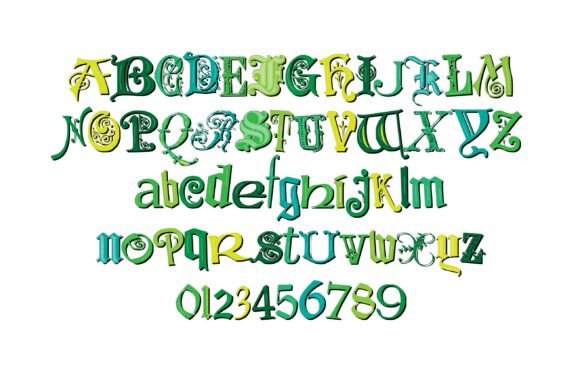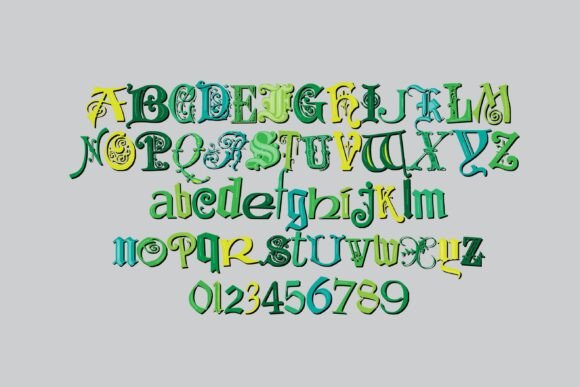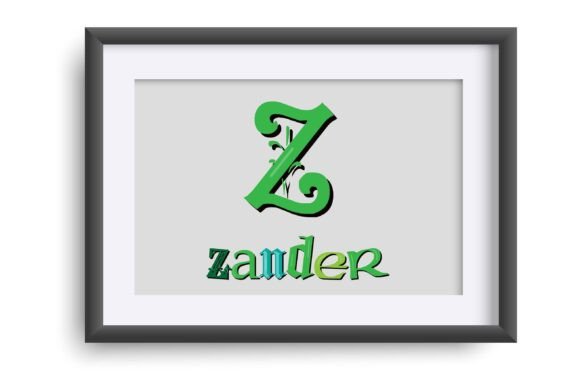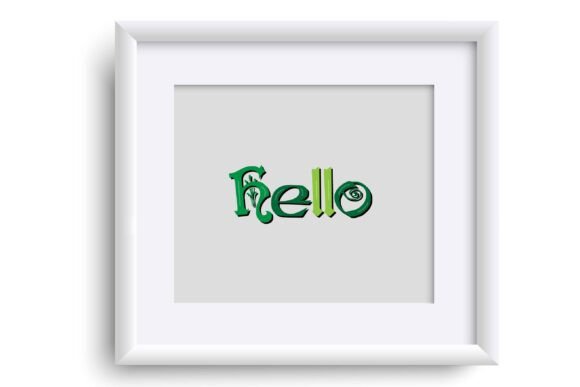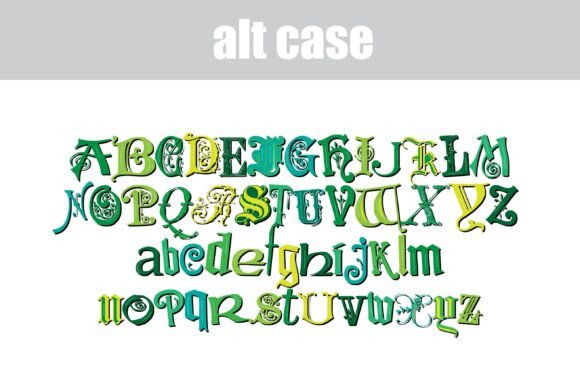
Introducing Emerald Mix Font: A Stunning Full-Color Font for Designers and Crafters
Are you looking for a unique and eye-catching font to elevate your designs? Look no further than the Emerald Mix Font, a full-color font that features a mix of font styles in green. This versatile font is perfect for titles, displays, posters, and more, and is compatible with Silhouette Studio.
What is Emerald Mix Font?
Emerald Mix Font is a specially designed font that combines different font styles in a range of green hues. The font features a unique blend of bold and delicate styles, making it perfect for creating visually appealing designs. The font is available in a full-color version, which means you can use it to create stunning designs with a range of colors.
Key Features of Emerald Mix Font
- Full-color font: The Emerald Mix Font features a range of green hues, making it perfect for creating designs that pop.
- Mix of font styles: The font combines different font styles, including bold and delicate styles, to create a unique look.
- Alt version with additional colors: The font comes with an alt version that contains additional colors for all the letters, accessible through your system’s character map.
- Use it for titles and displays: The font is perfect for creating eye-catching titles and displays.
- Experiment with different colors: The font comes with an alt version that contains additional colors, so don’t be afraid to experiment and try out different color combinations.
- Pair it with other fonts: The Emerald Mix Font can be paired with other fonts to create a unique look.
The Emerald Mix Font is a stunning full-color font that’s perfect for designers and crafters. With its unique mix of font styles and range of green hues, it’s perfect for creating eye-catching titles, displays, posters, and more. Compatible with Silhouette Studio and easy to use, this font is a must-have for anyone looking to elevate their designs.
- The Emerald Mix Font is a full-color font that features a mix of font styles in green.